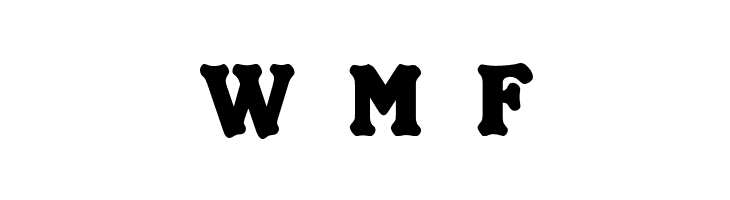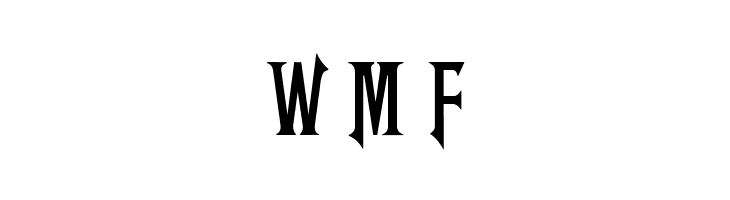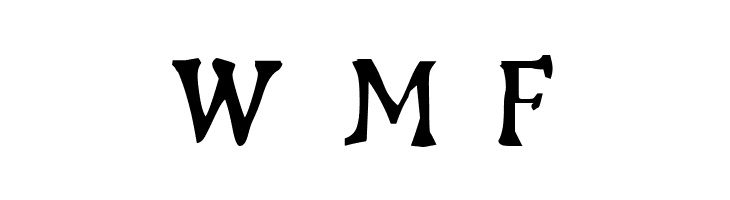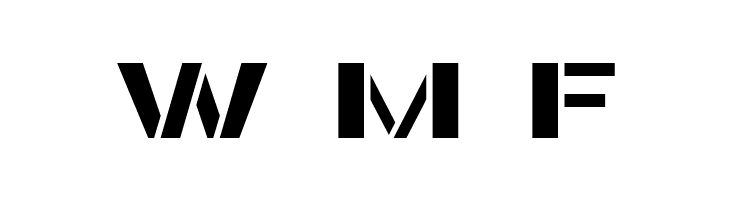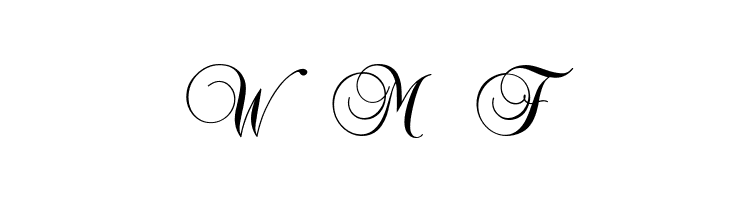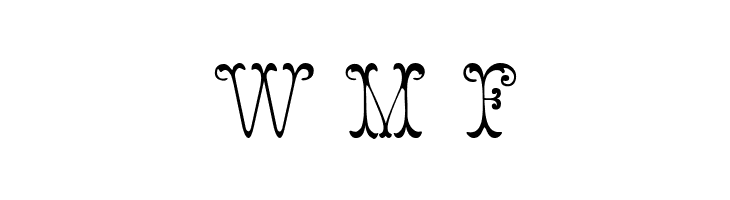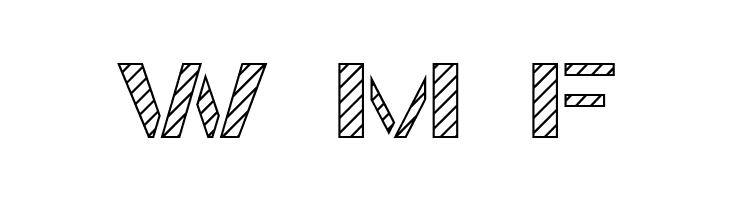
Copyist Thin Font
An elegant script font with thin, flowing strokes and intricate loops.
Rockletter Transparent Font
A bold, decorative font with distinct outlines and a cohesive design.
Rockletter Simple Font
A bold, playful font with rounded characters and consistent stroke width.
Conkordia Font
A bold, angular serif font with a dramatic and modern twist.
Cansellarist Font
An elegant script font with flowing, cursive letterforms and ornate flourishes.
Trafaret Kit Transparent Font
A bold, geometric stencil font with clean lines and distinct gaps.
Kabarett Simple Thin Font
A playful, decorative font with wavy edges and a handcrafted feel.
Champagne Cyrillic Font
An elegant script font with ornate, flowing letterforms and high contrast strokes.
Drakkar Font
An artistic and whimsical font with flowing, hand-drawn letterforms.
Trafaret Kit Font
A bold, stencil-style font with sharp angles and distinct gaps.
Kabarett Decor DEMO Thin Font
A bold, decorative font with a vintage, three-dimensional style.
Flibustier Thin Font
A whimsical and playful serif font with unique, decorative strokes.
Afisha Font
A bold, angular font with a modern, condensed design.
Figurny Font
A whimsical, decorative font with playful curls and loops.
AfishaCap Font
A bold, angular font with a modern, geometric style.
Trafaret Kit Hatched Font
A modern, hatched stencil font with a technical and industrial vibe.